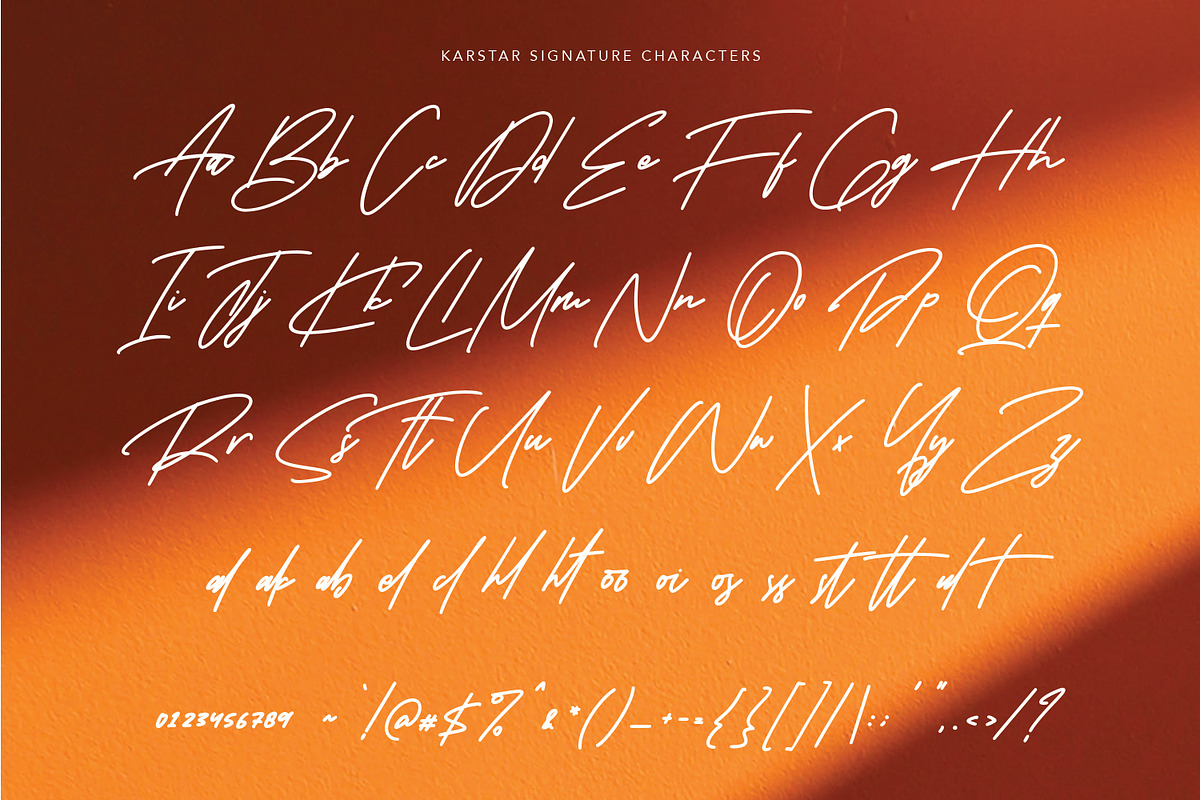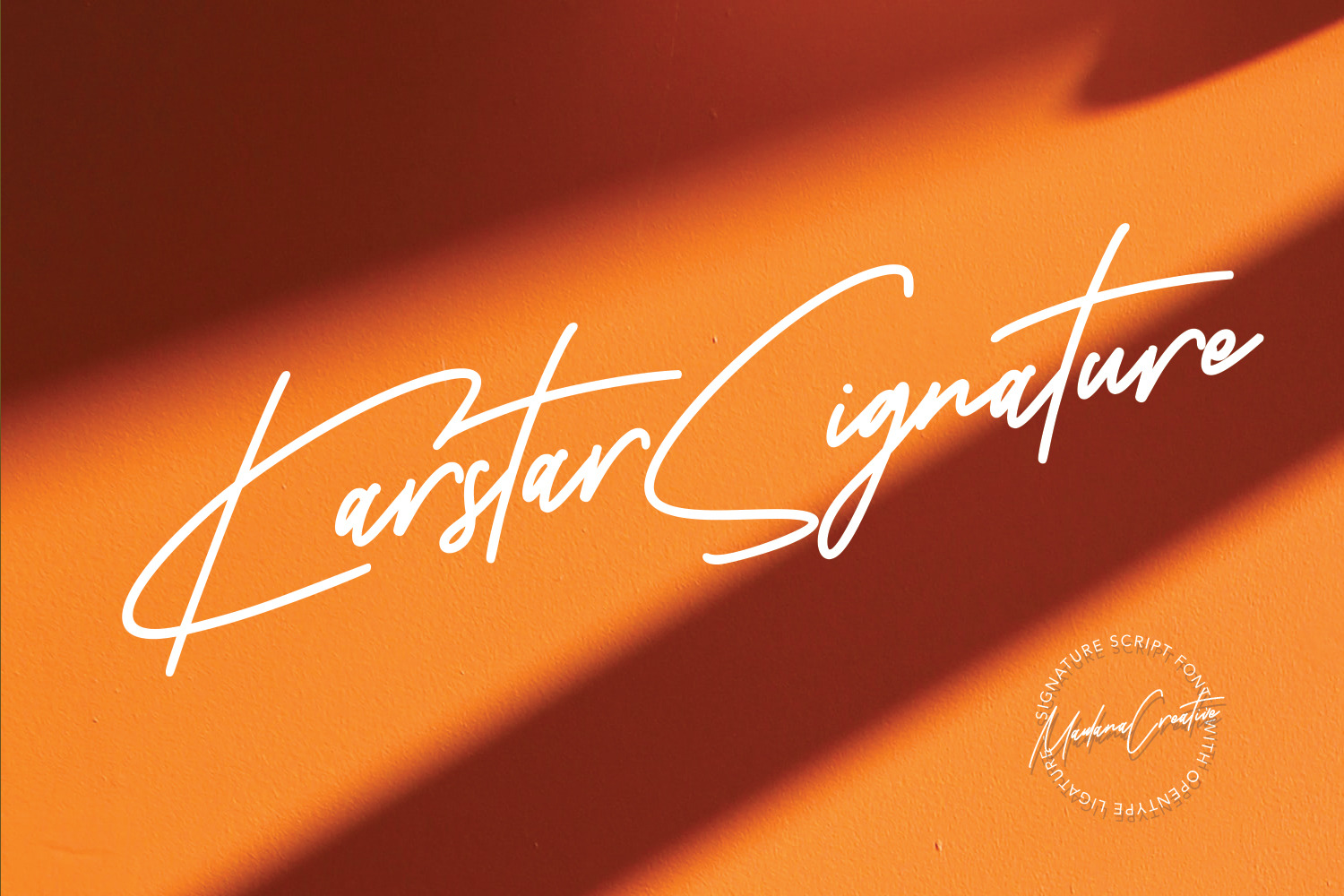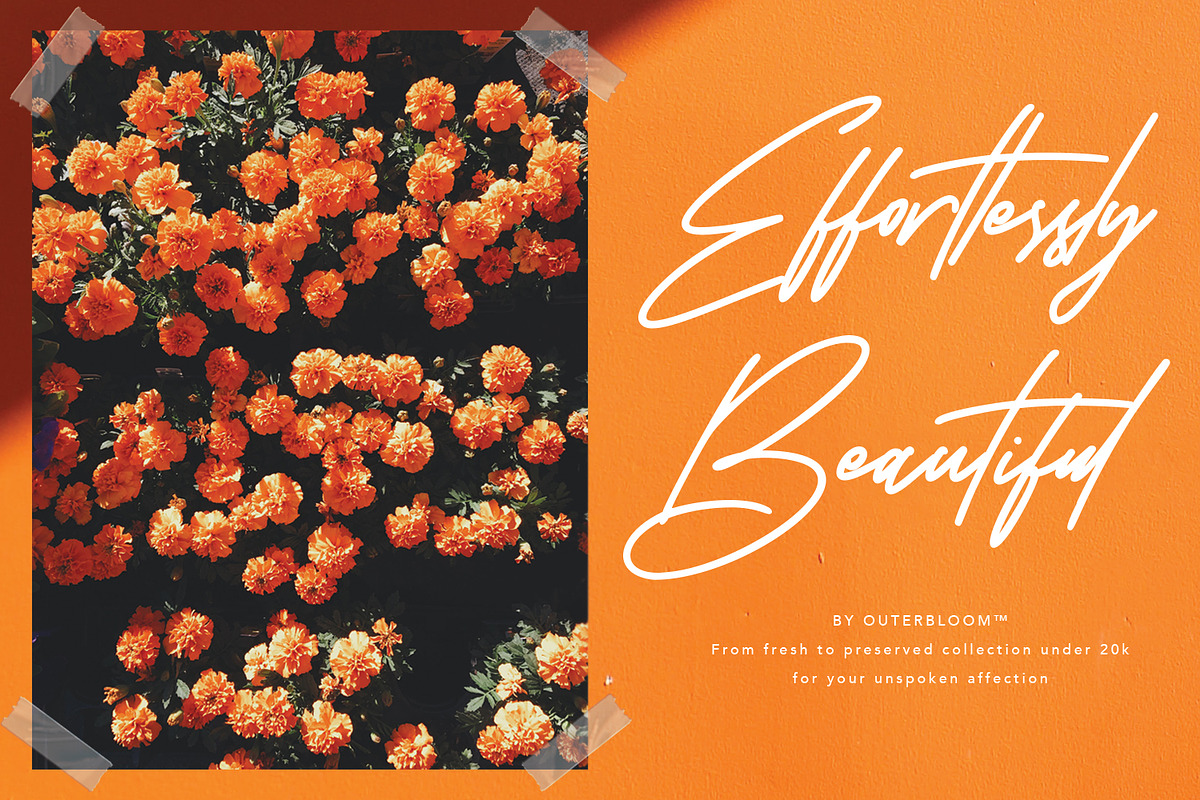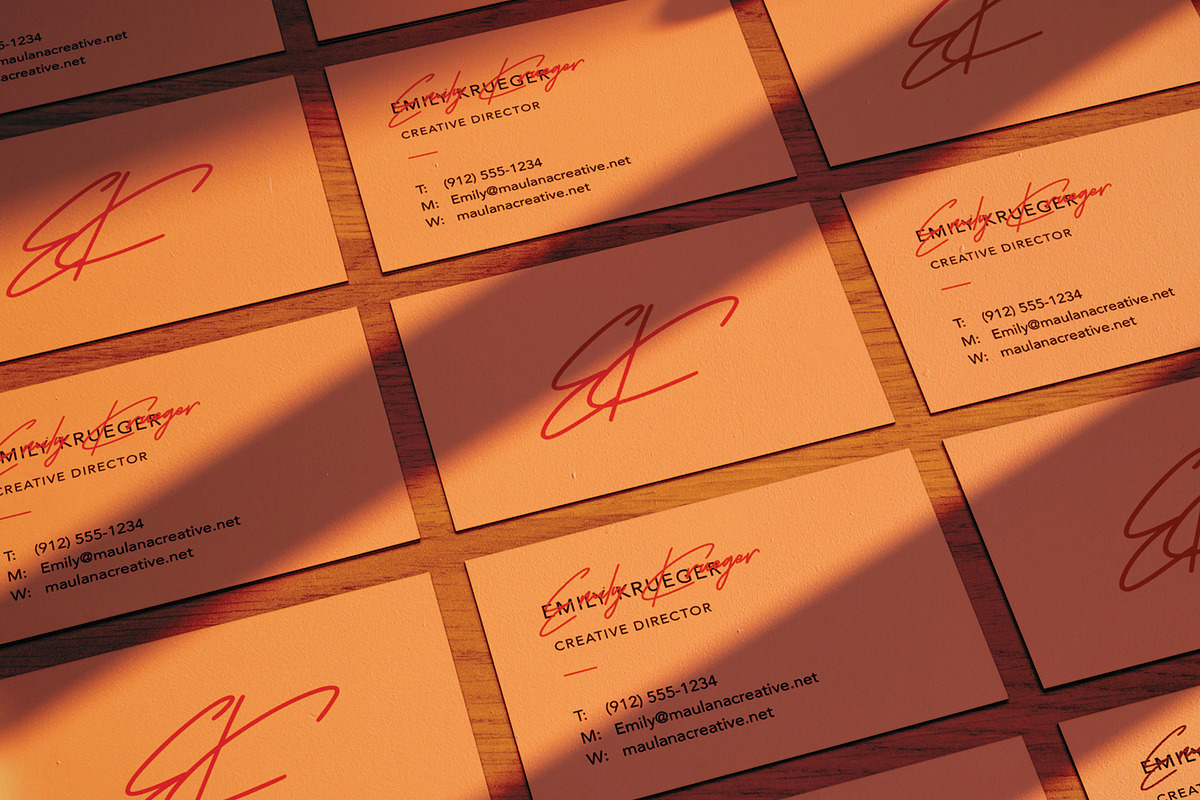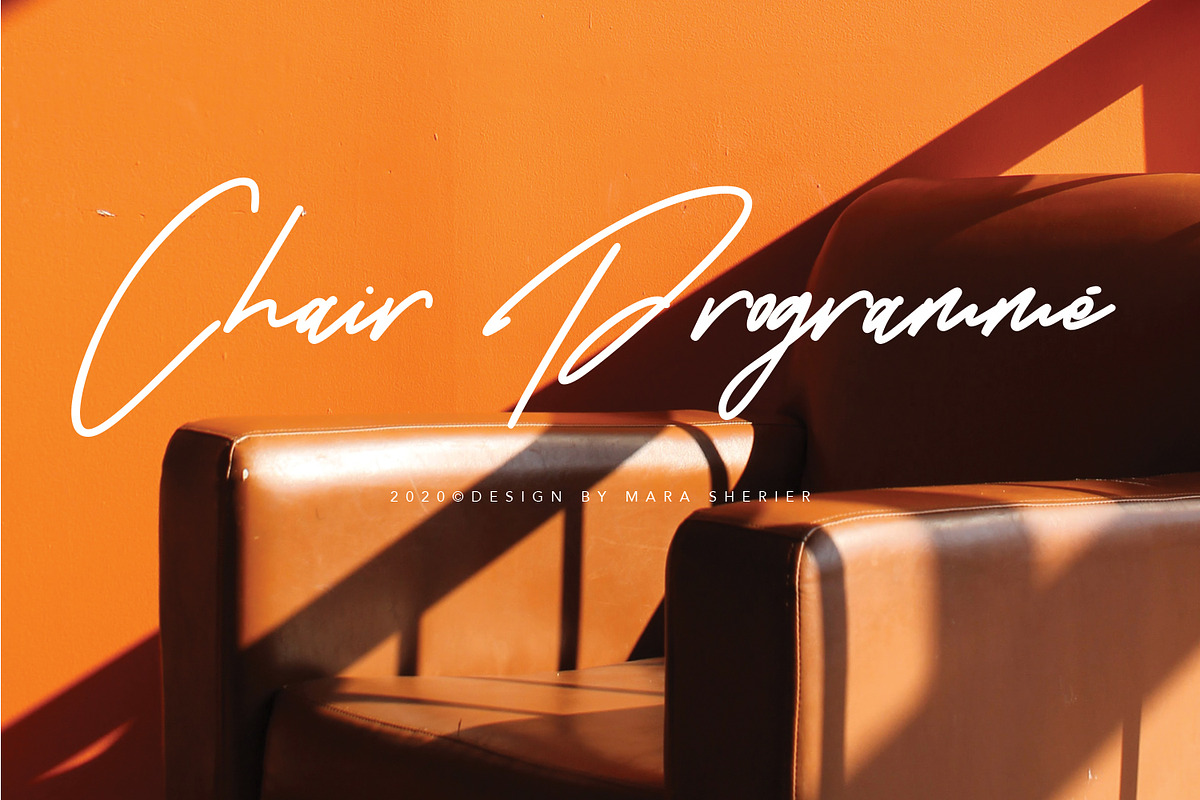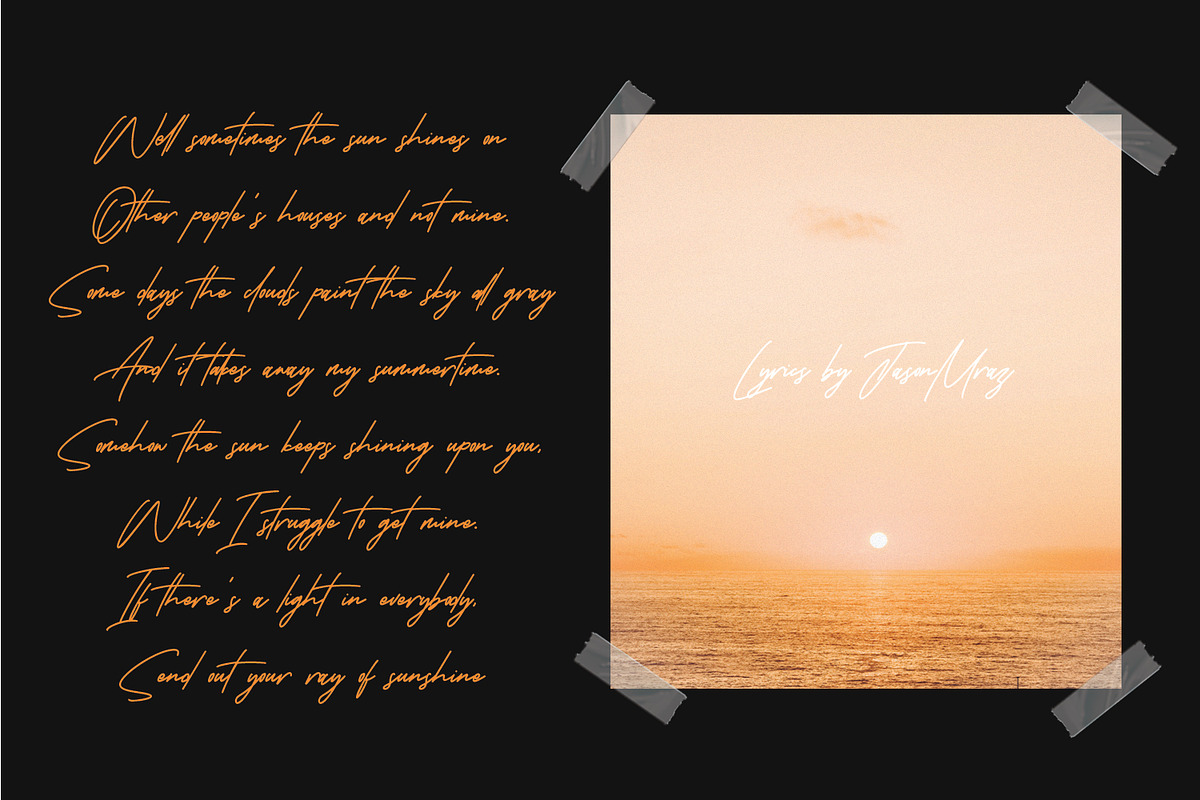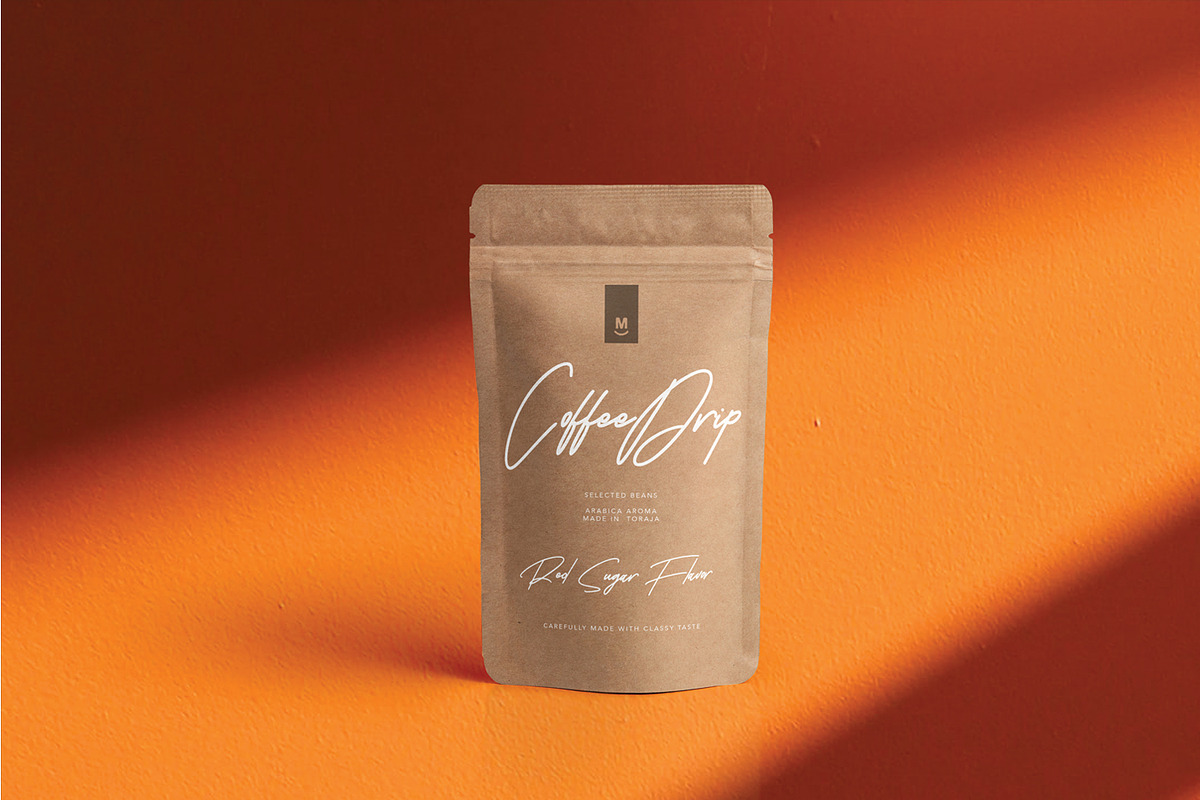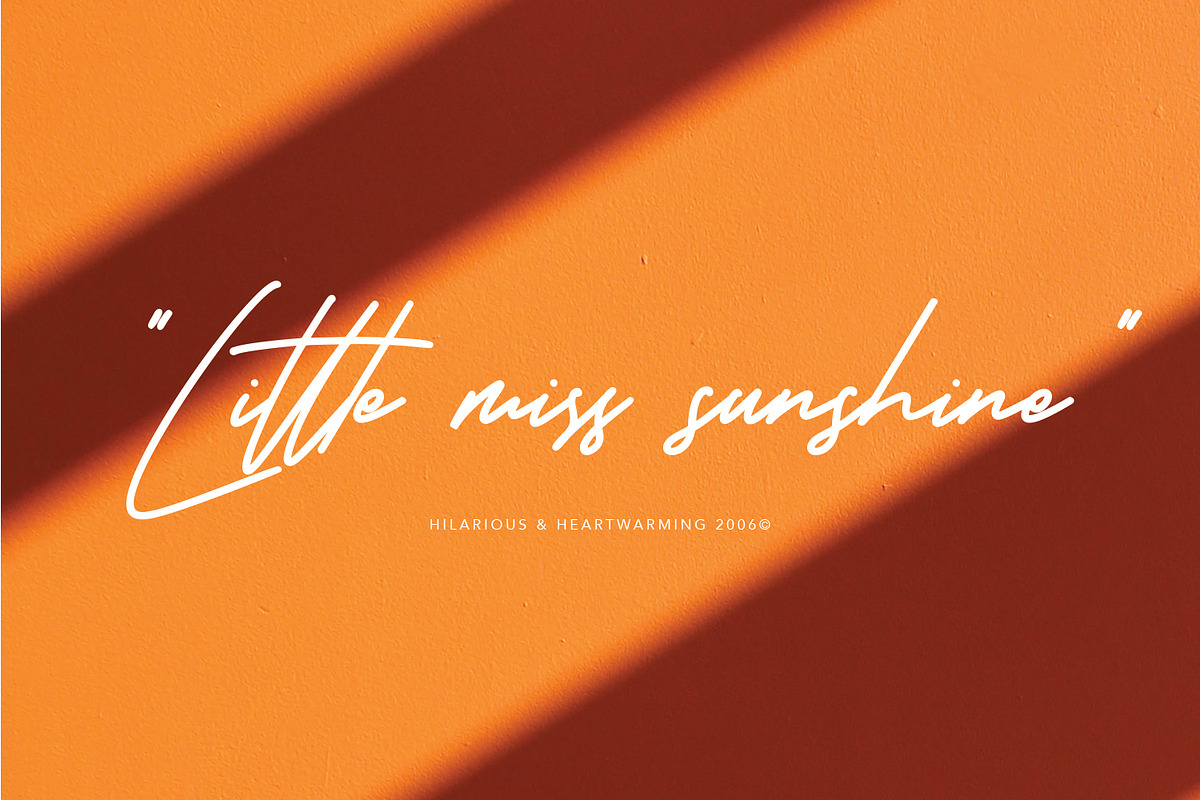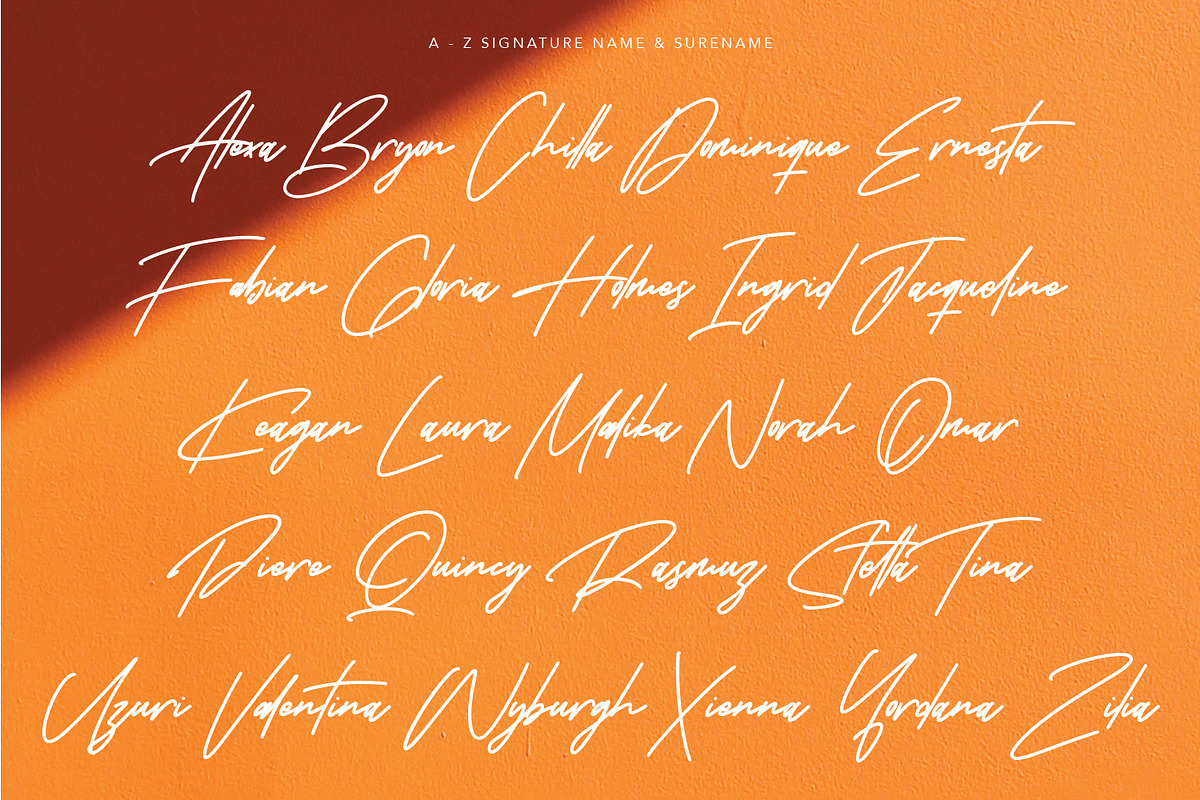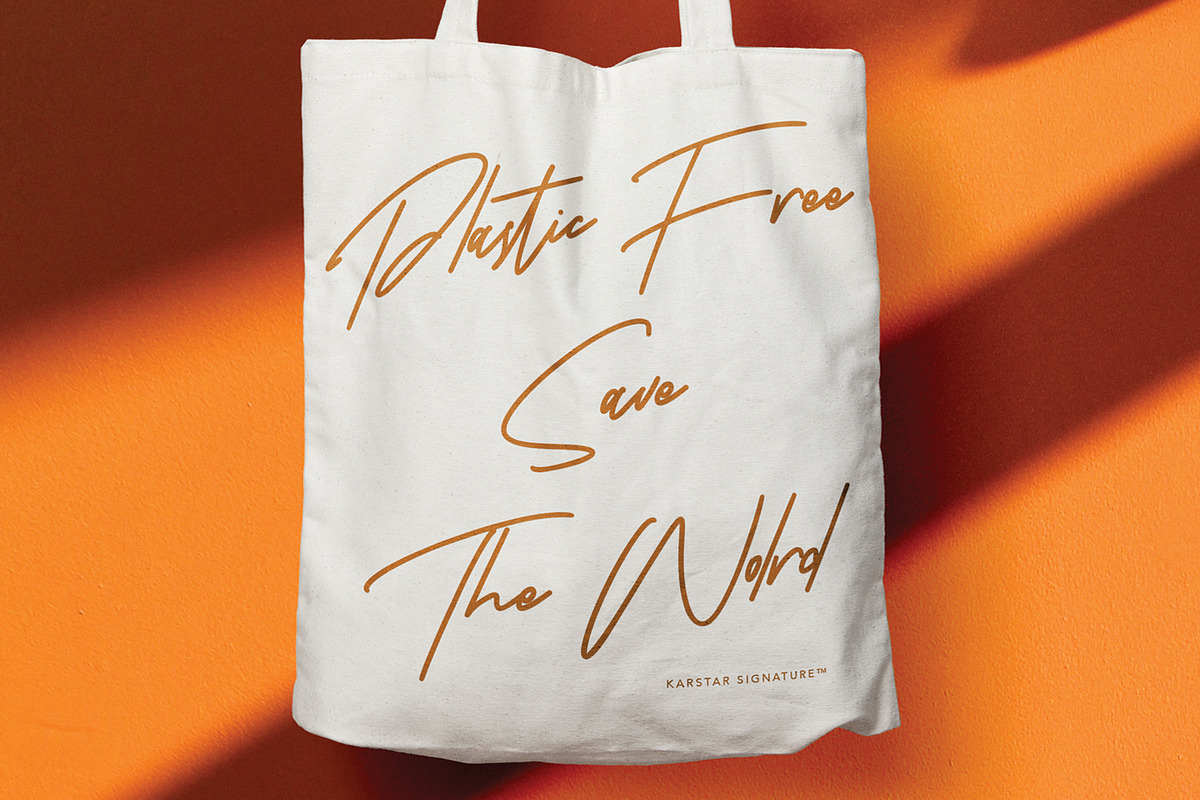
Karstar Signature Font
Give your designs an authentic handcrafted feel. “Karstar Signature Font” is perfectly suited to signature, stationery, logo, typography quotes, magazine or book cover, website header, clothing, branding, packaging design and more.